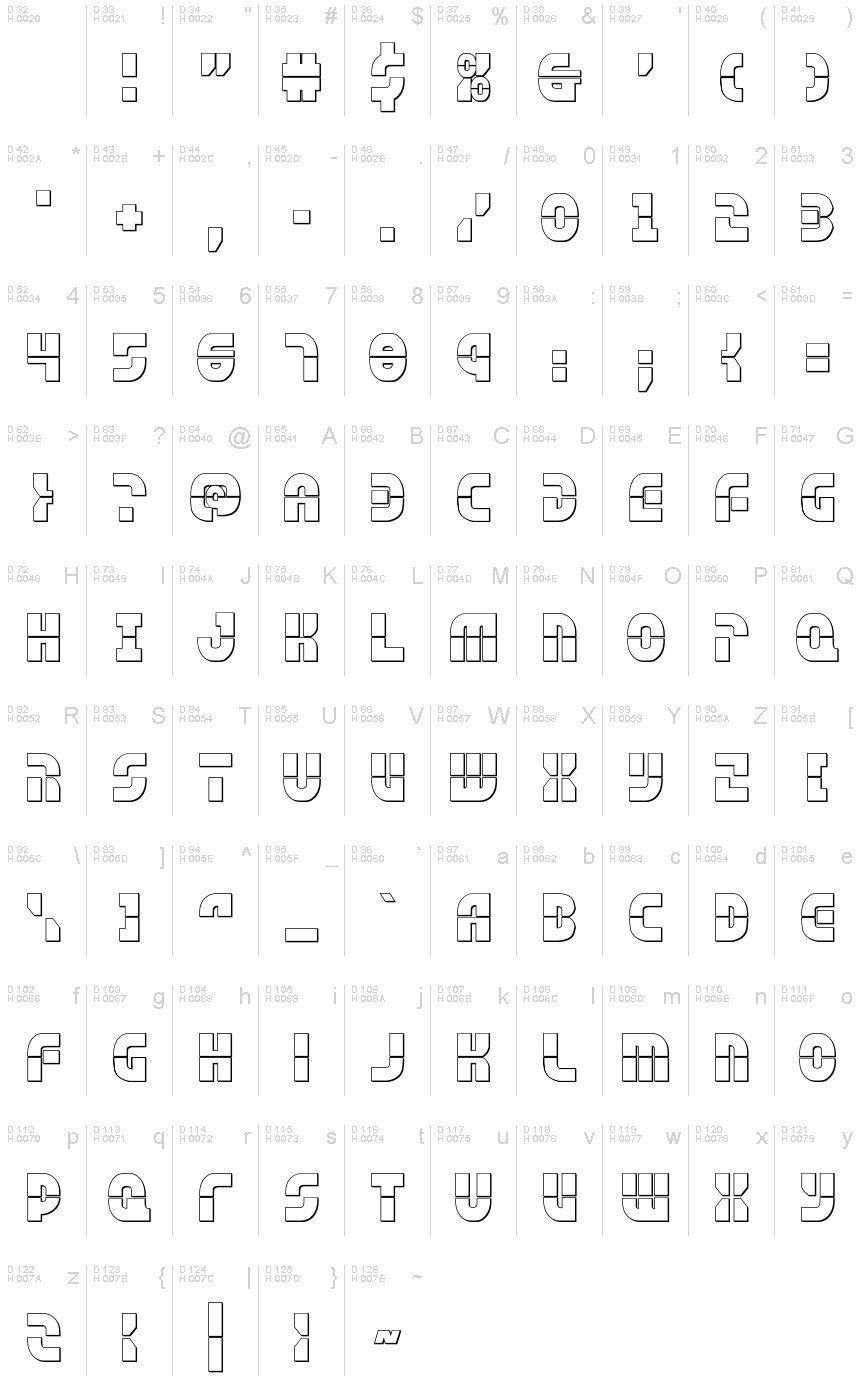
Rebel Command 3D
Rebel Command 3D embodies a striking blend of boldness and futuristic flair, reminiscent of military insignia while evoking a sense of adventure. Its commanding presence is defined by exaggerated solidity and depth, creating an eye-catching aesthetic that demands attention. The geometric forms give it an innovative edge, perfect for captivating visuals in both digital and print media.
Ideal for gaming graphics, movie posters, or any project seeking to convey strength and excitement, Rebel Command 3D stands out as the go-to choice for designs requiring a punchy statement. Whether utilized in a headline or as part of a dynamic branding strategy, this font's distinctive character ensures it leaves a lasting impact across diverse creative landscapes.